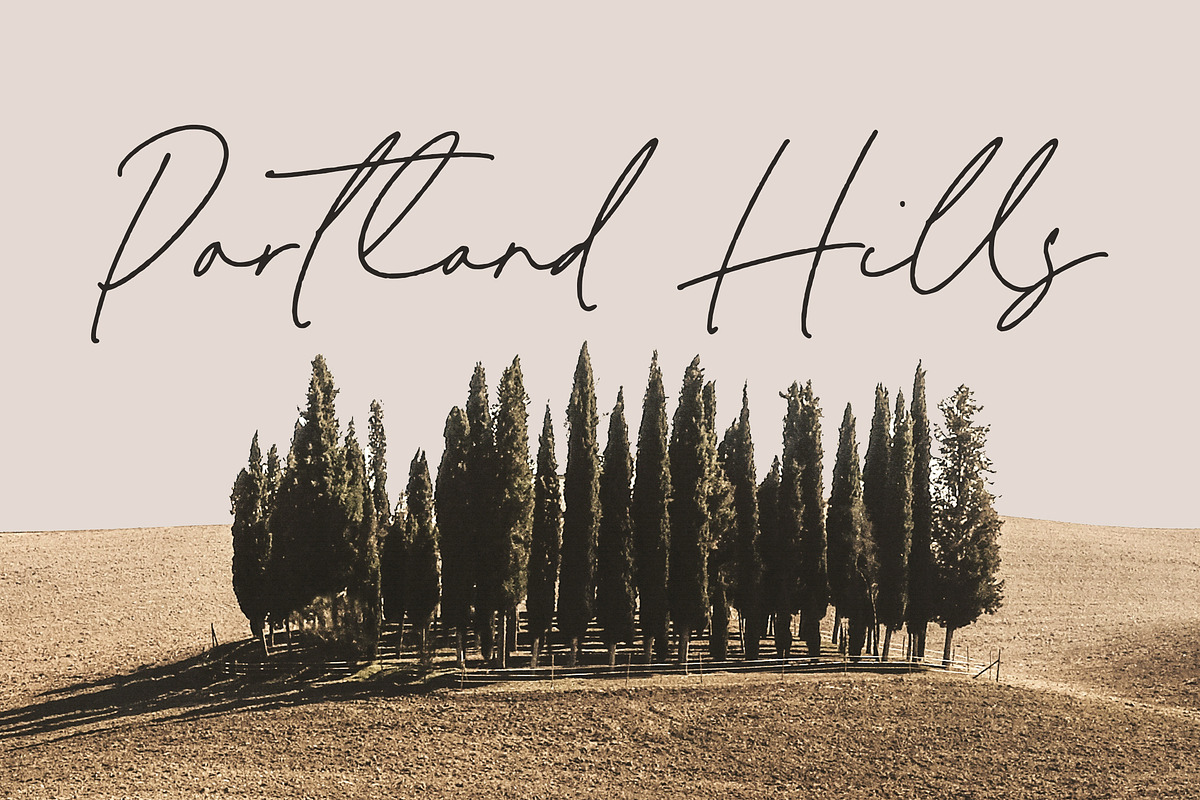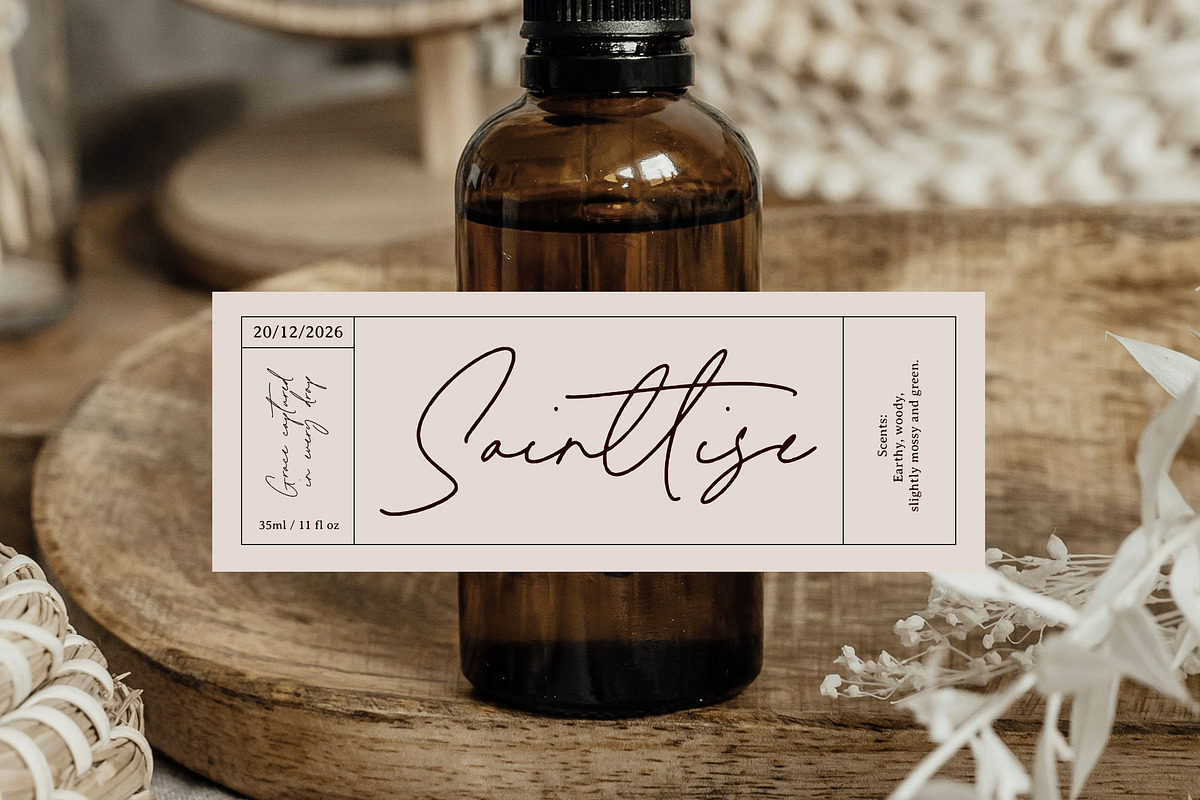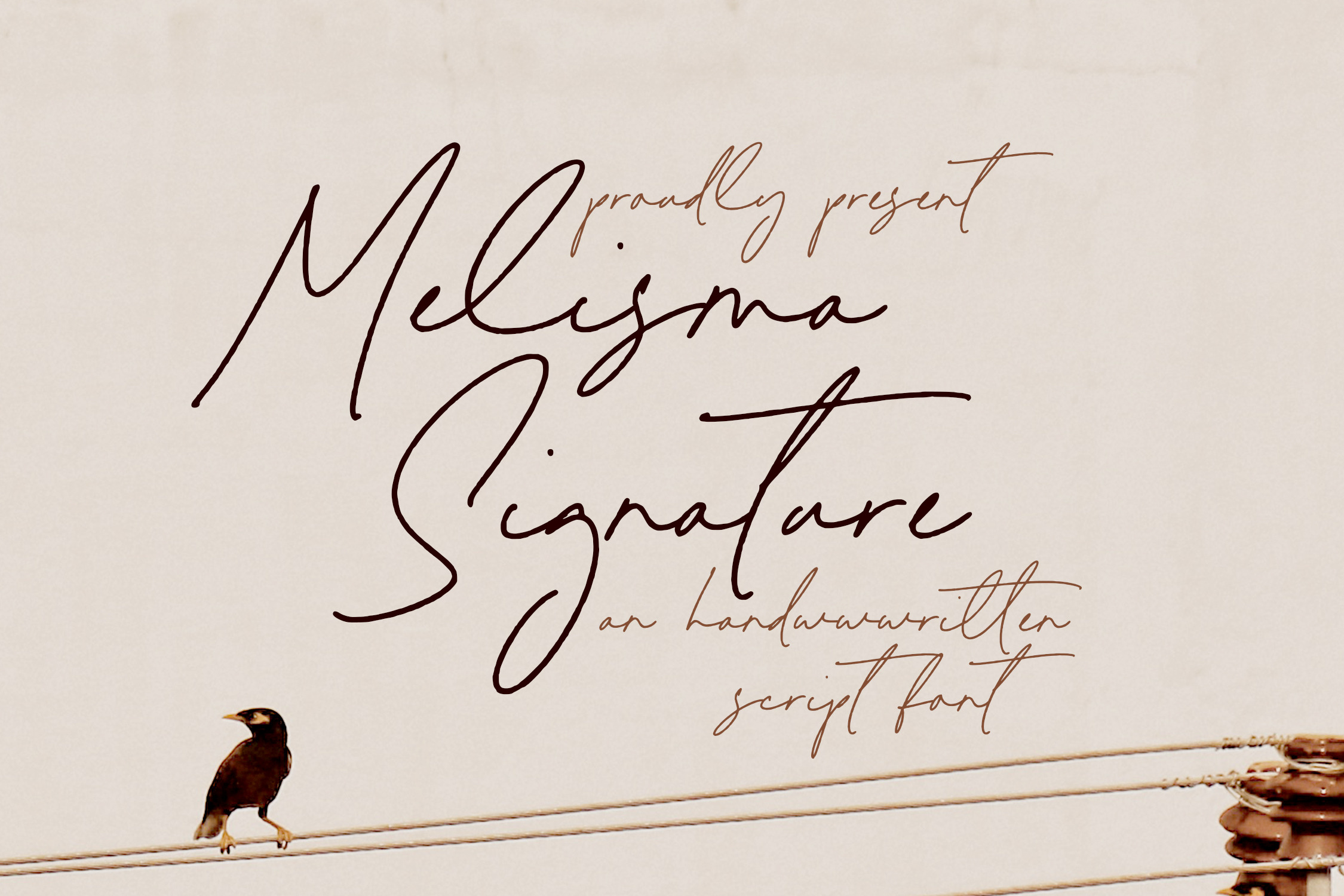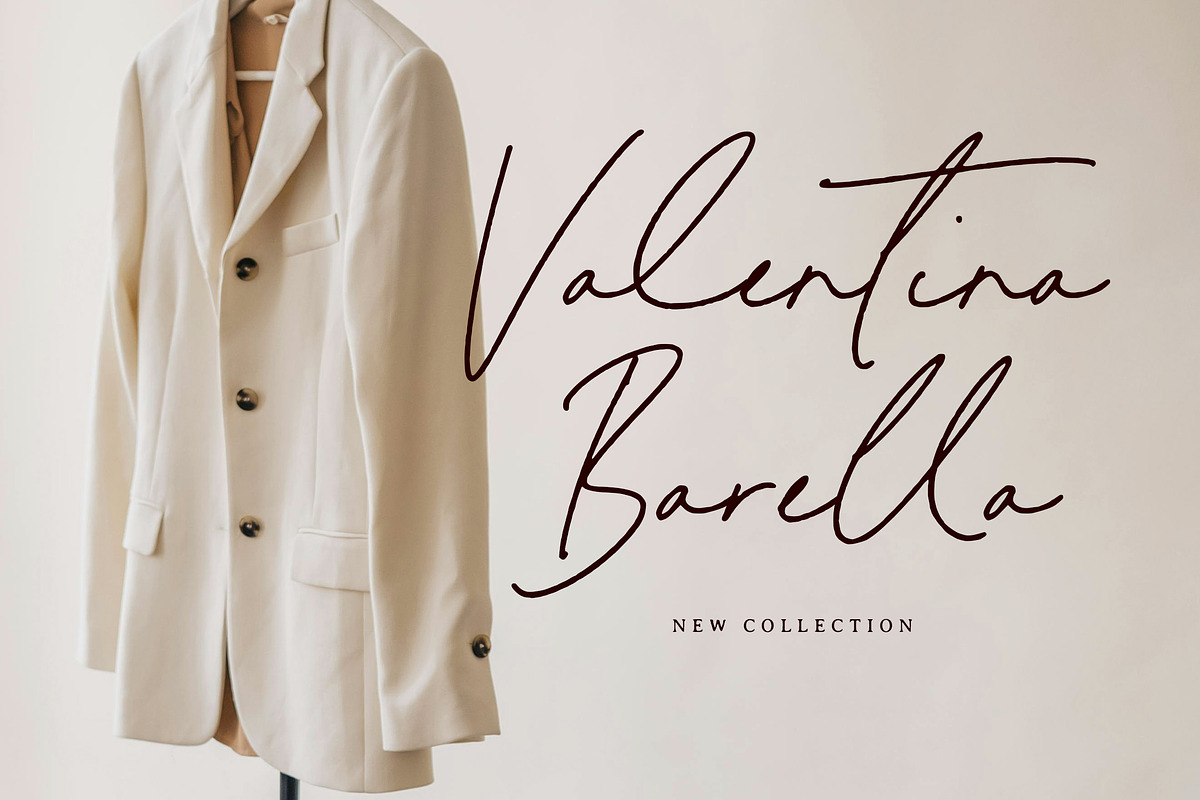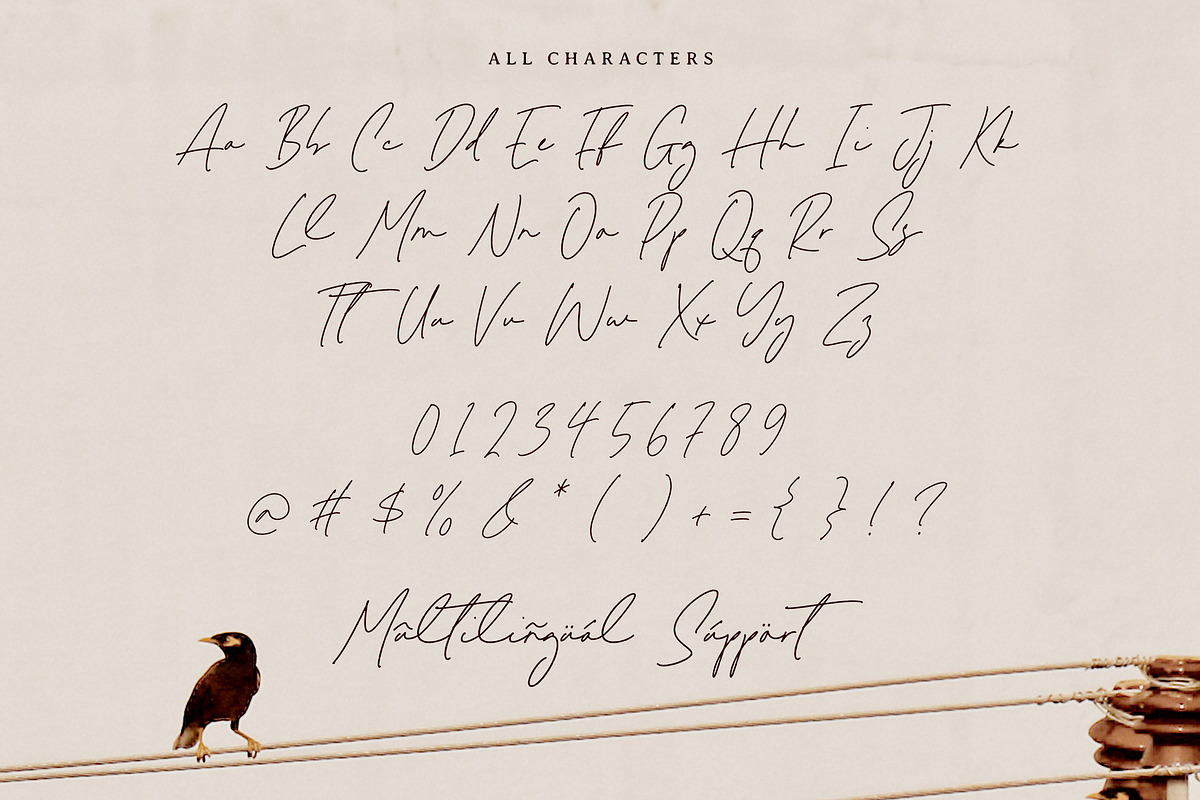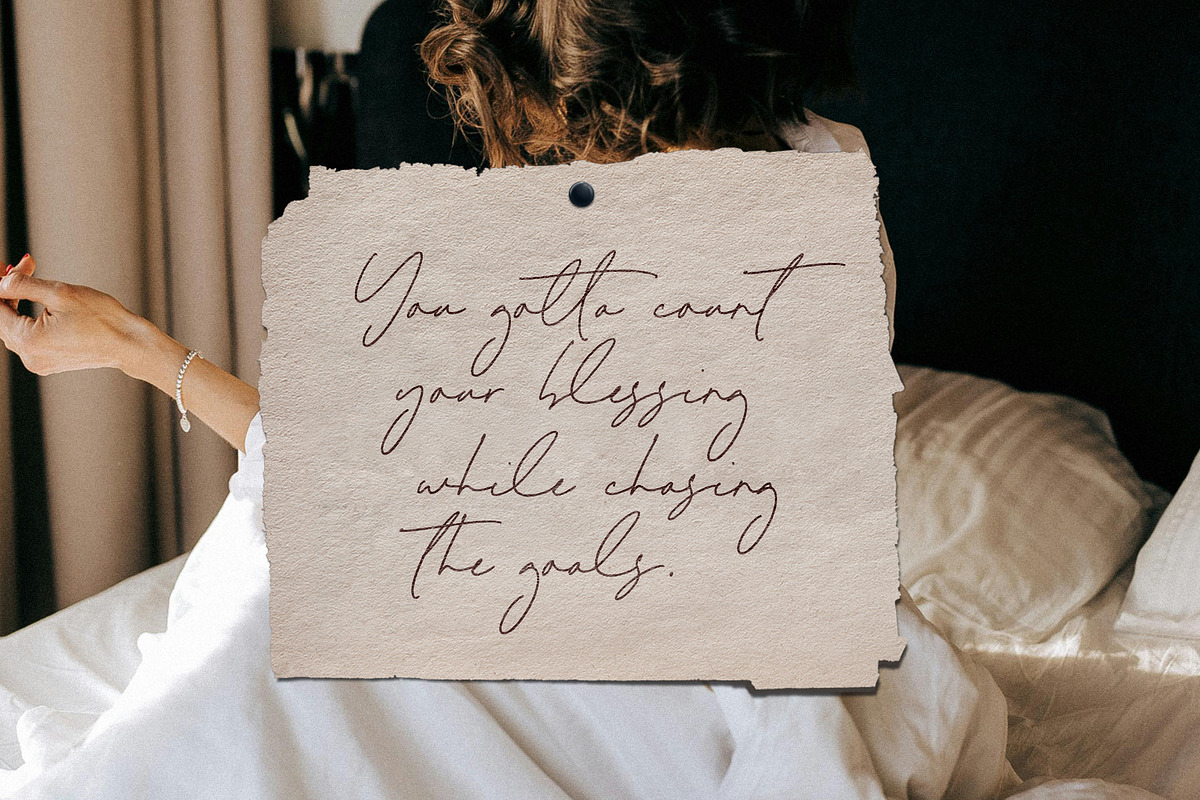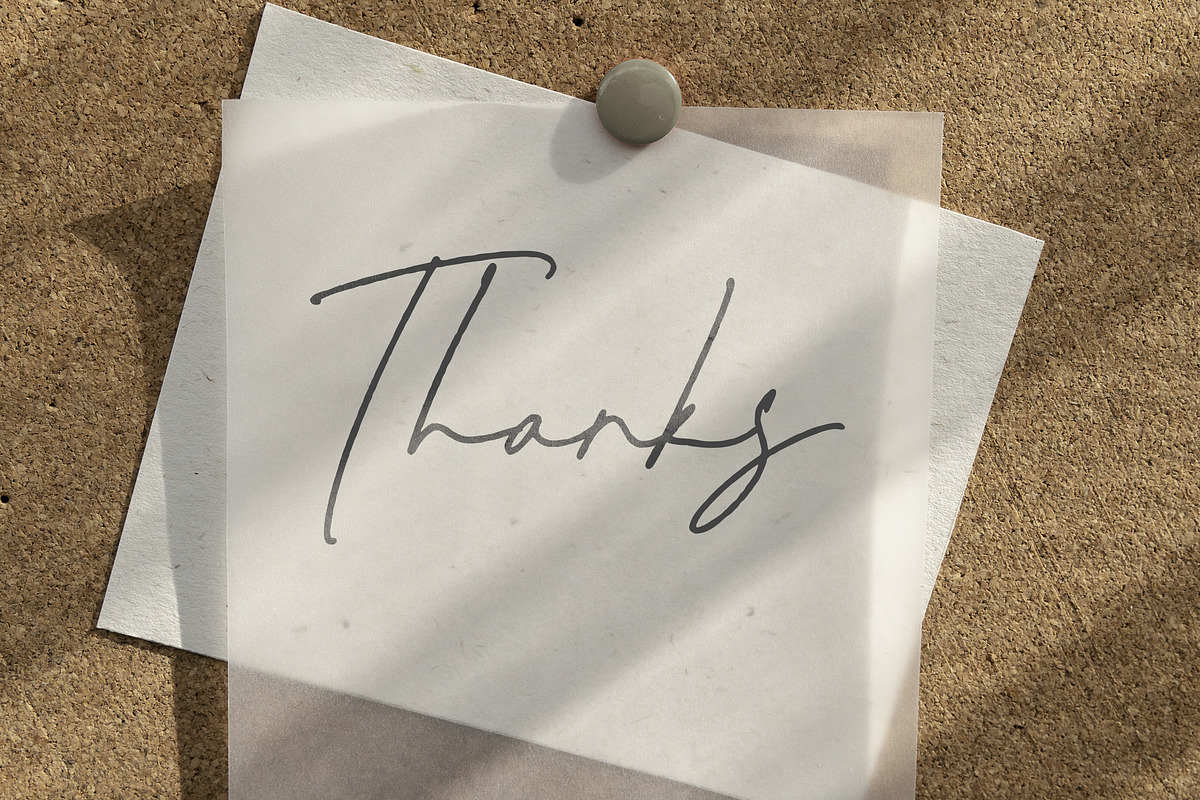
Melisma Signature Font
Introduced by Timurtype Studio!
Melisma Signature is a Handwritten Script Font
This font is an elegant handwritten script font that blends sophisticated calligraphy with a fluid touch. Featuring smooth, flowing lines and stylish loops, it captures the essence of a graceful signature, making it perfect for branding, invitations, or any design that seeks a warm, authentic feel. Its natural, yet polished aesthetic brings a unique, artistic flair to both formal and casual projects.
Melisma Signature Font also supports multilingualism